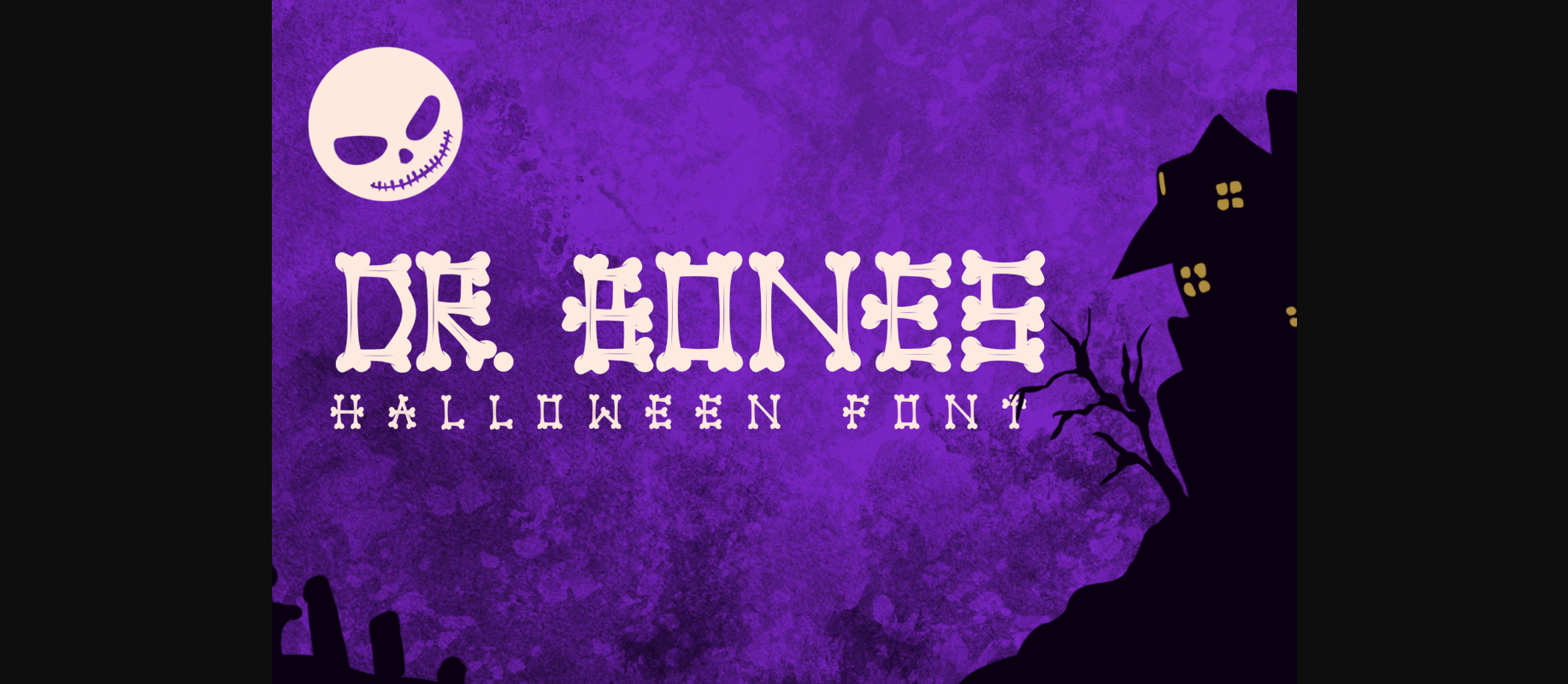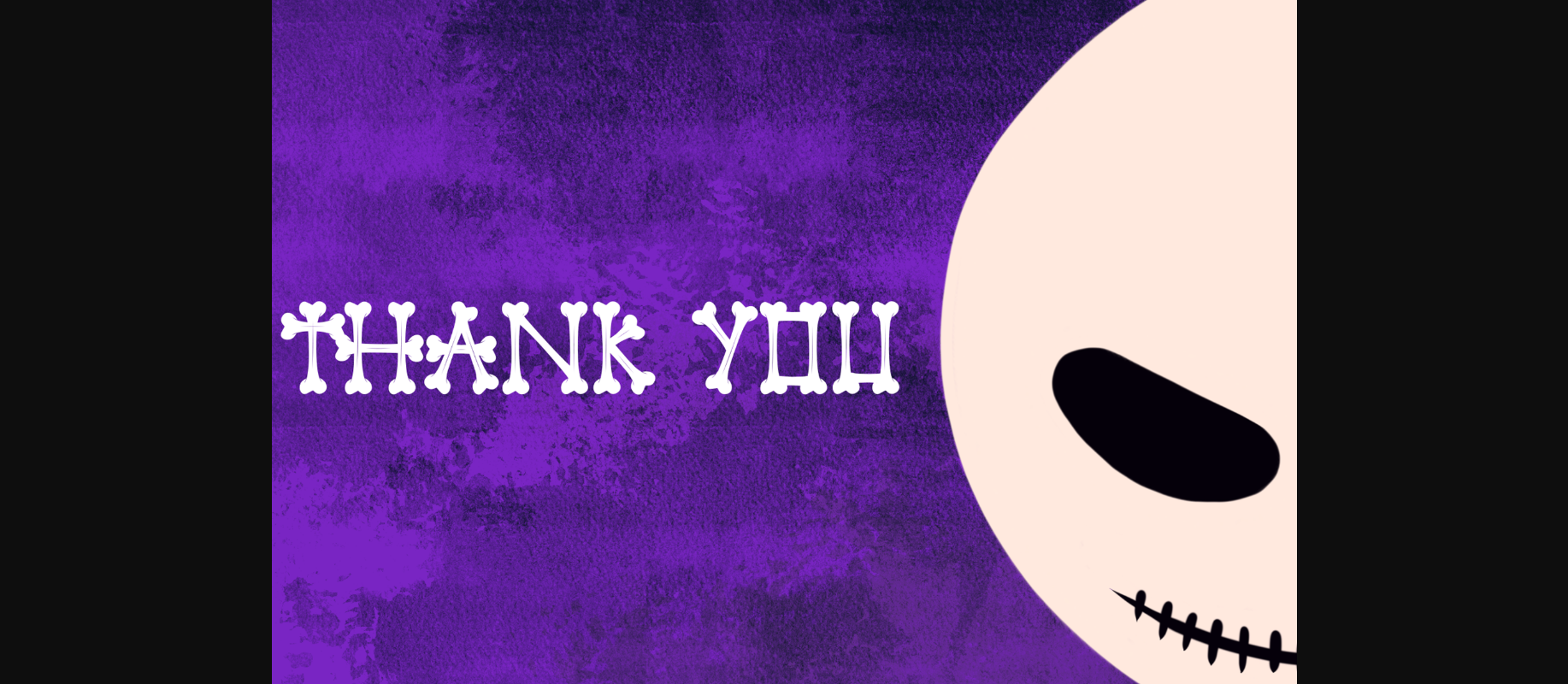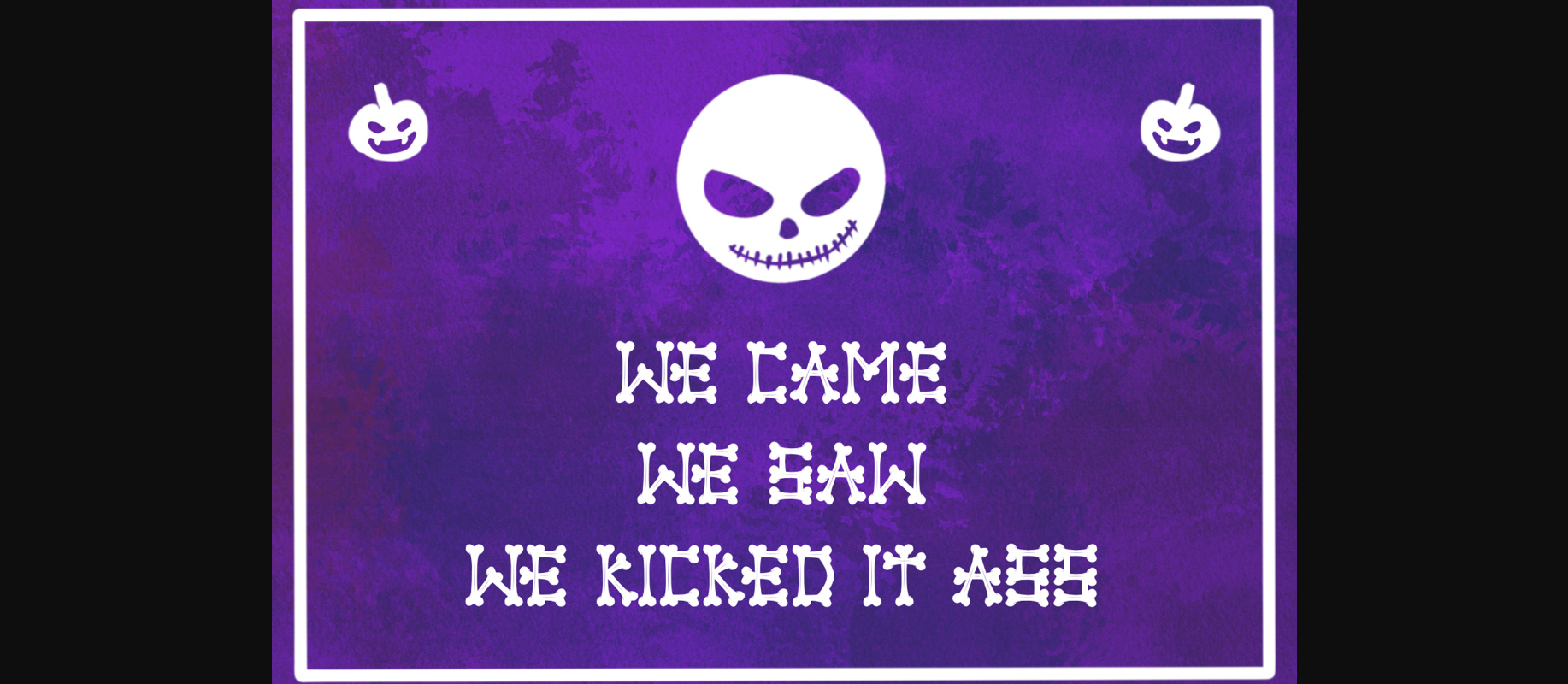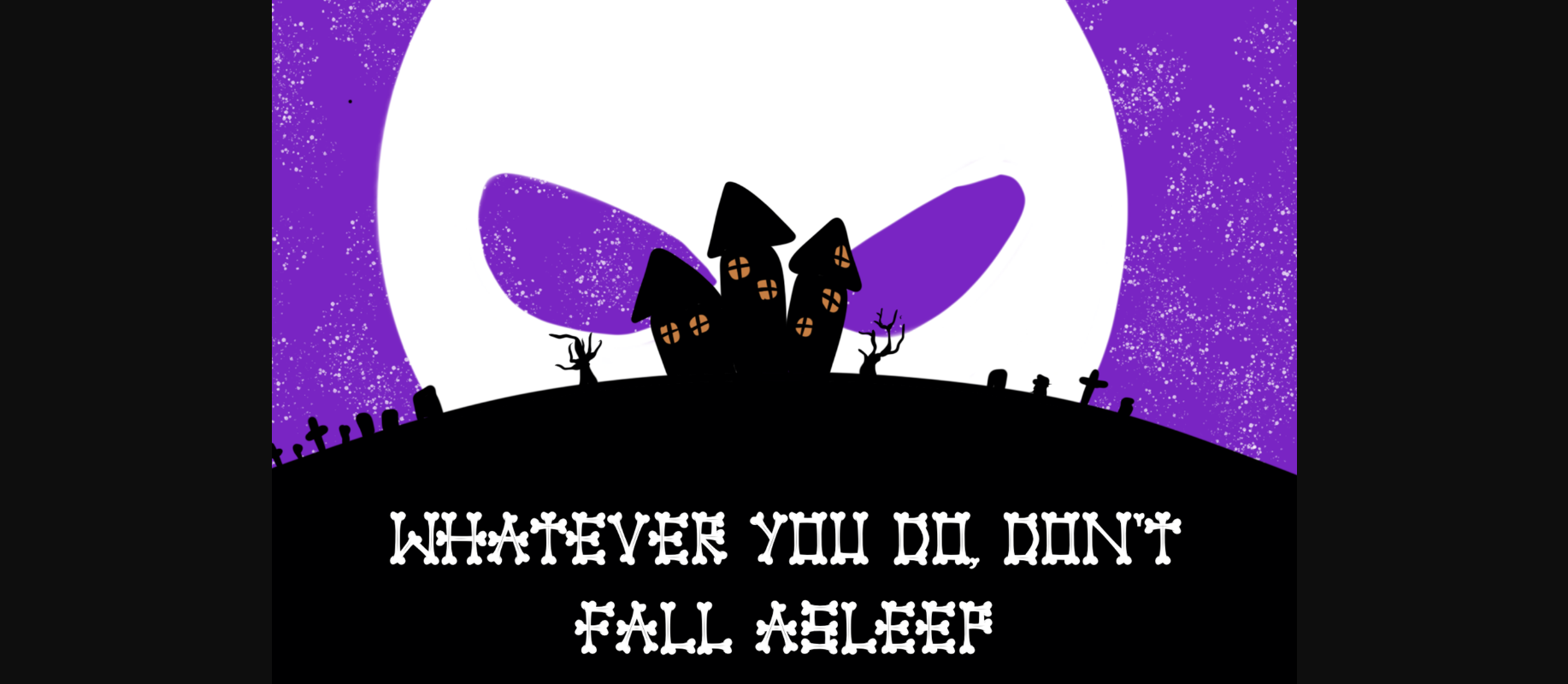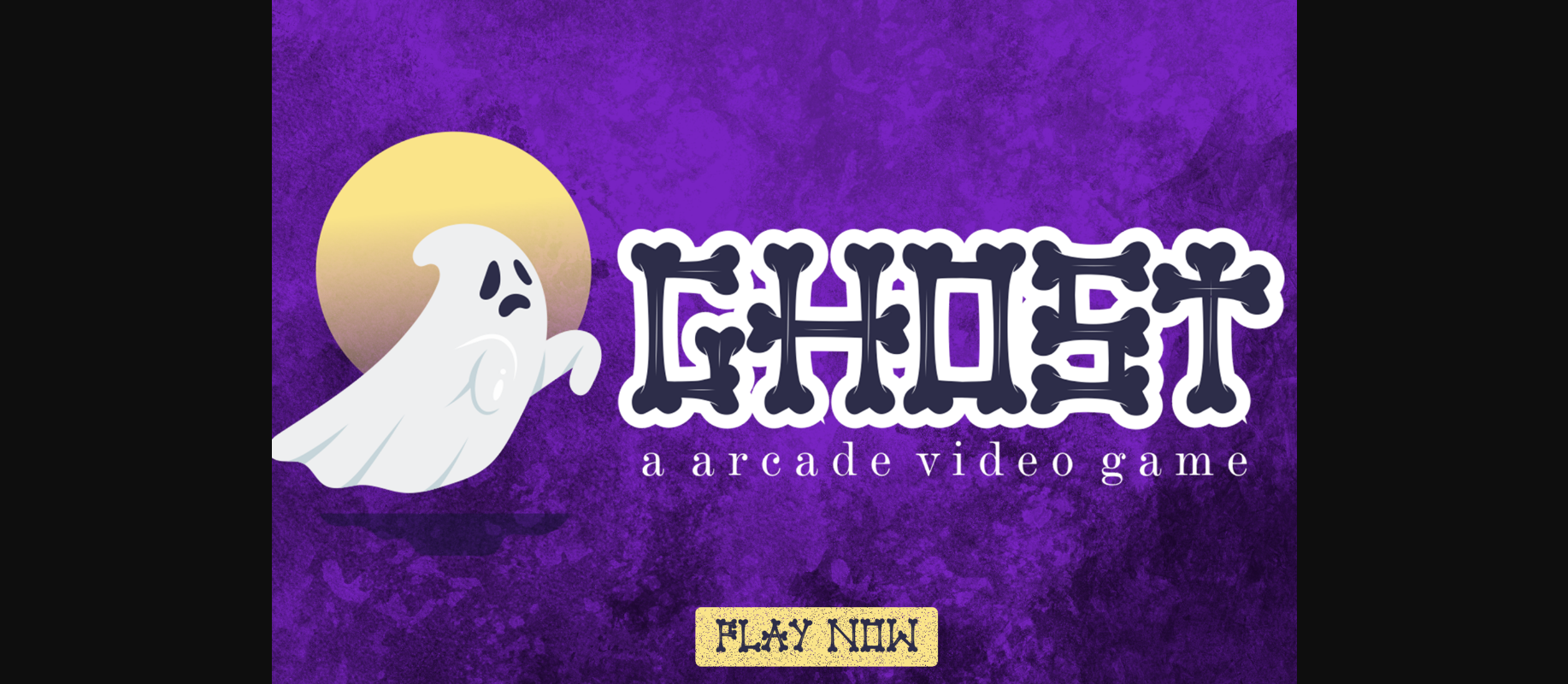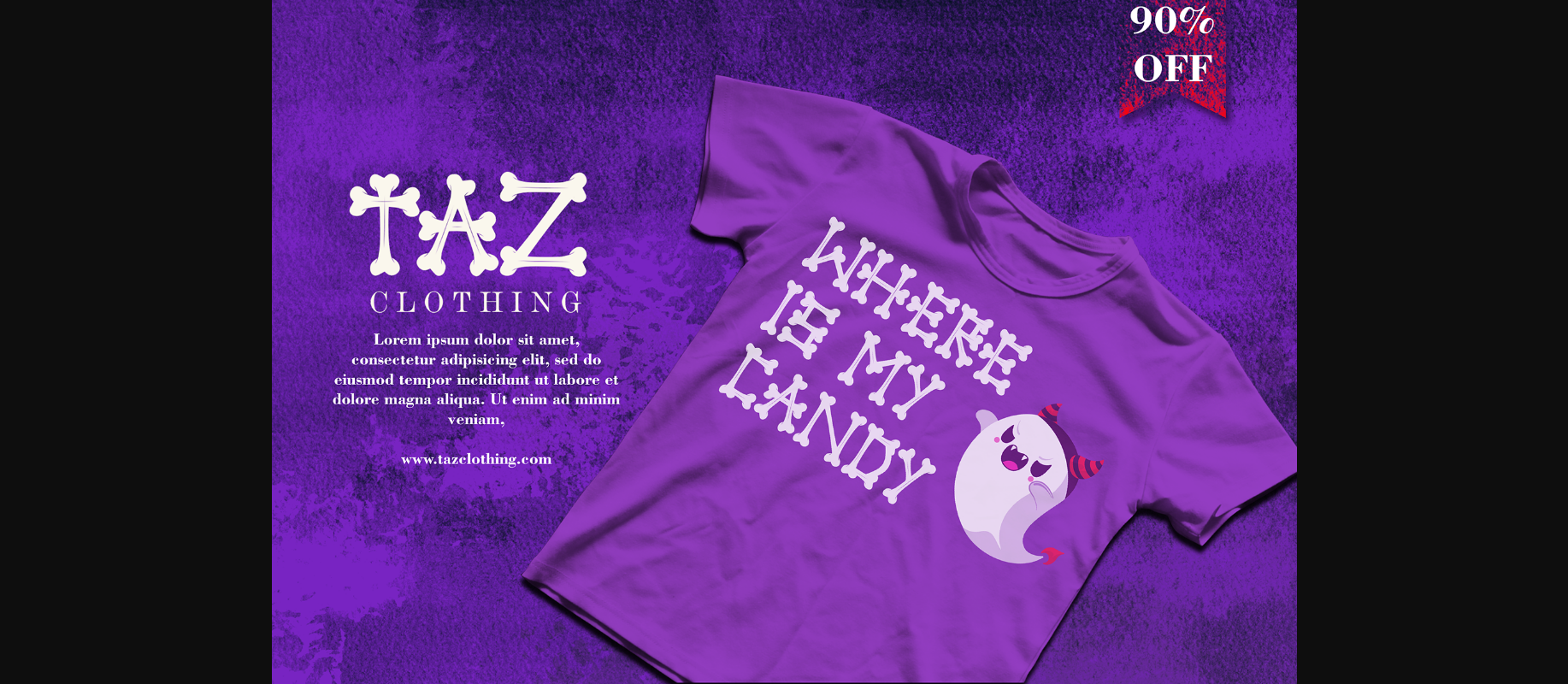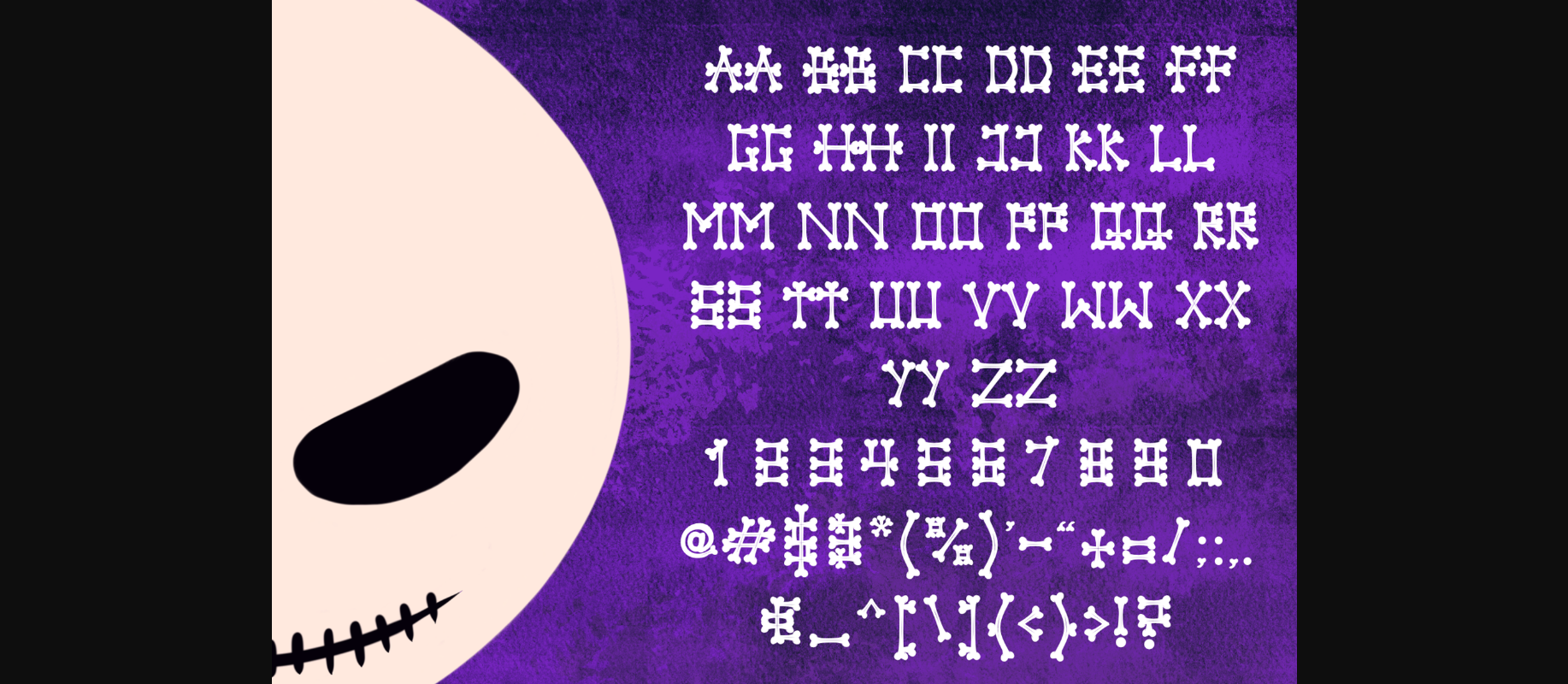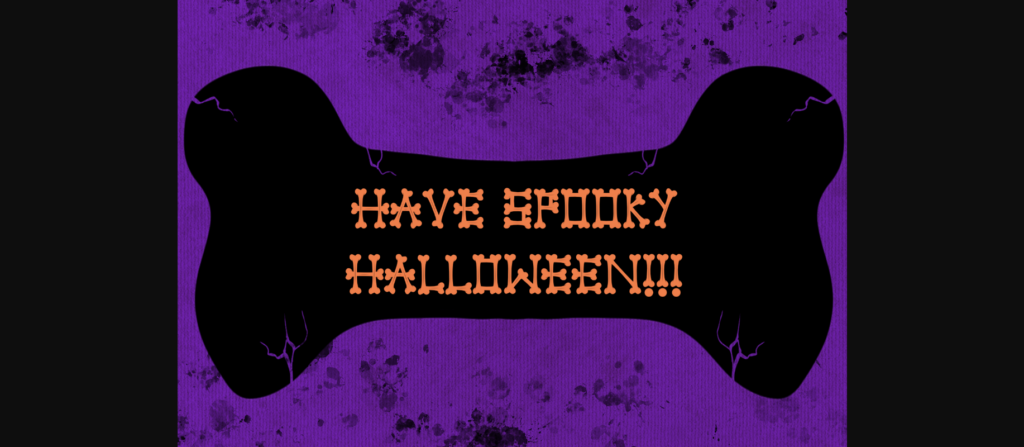
HomeDecorative FontsDr. Bones Font Decorative Fonts Dr. Bones Font FacebookXPinterestWhatsApp 1 of 10 ... Dr. Bones Font Poster 2... Dr. Bones Font Poster 3... Dr. Bones Font Poster 4... Dr. Bones Font Poster 5... Dr. Bones Font Poster 6... Dr. Bones Font Poster 7... Dr. Bones Font Poster 8... Dr. Bones Font Poster 9... Dr. Bones Font Poster 10... About Dr. Bones Font Dr. Bones is a creepy and dark looking decorative font. It is perfectly suitable for any Halloween-related project or crafty idea! The only limit is your imagination. DOWNLOAD NOW People also explored Butterfly Inside Font Ballerina Script Font Mustang Ariesta Moon Duo Font Hounted House Font Hockey Font La Vi En Rose Font Cartoon Club Amandela Font 349 0 TagsDr. Bones Font Previous articleArabesque Vines Monogram FontNext articleWax Seal Monogram Font LEAVE A REPLY Cancel reply Comment: Please enter your comment! Name:* Please enter your name here Email:* You have entered an incorrect email address! Please enter your email address here Website: Save my name, email, and website in this browser for the next time I comment. Personal Use Free Reztop Personal Use Free Read more about this font Wadjet Personal Use Free Read more about this font Happy Rabbit Personal Use Free Read more about this font Super Discount Personal Use Free Read more about this font BLOG How to Install and Use Fonts on Windows, macOS, and Web Projects How to Install and Use Fonts on Windows, macOS, and Web Projects Fonts are a crucial part of design and branding. Whether you’re designing a... Modern Sans-Serif Fonts That Brands Love in 2025 Exploring Font Trends Elegant Wedding Invitation Fonts – Handwritten & Script Fonts